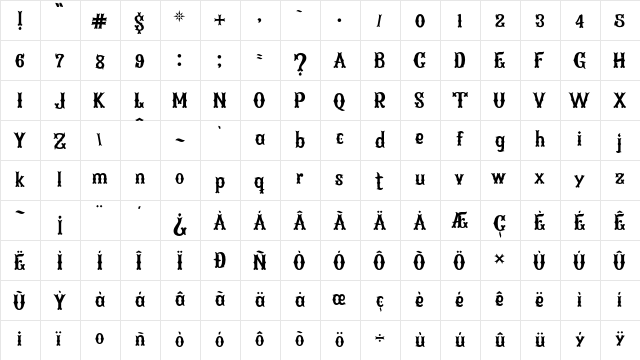
Arenosa-BQ Regular
Design Context for Arenosa-BQ Typeface
Arenosa-BQ is a composed and adaptable typeface that performs quietly and consistently across a wide range of design contexts.